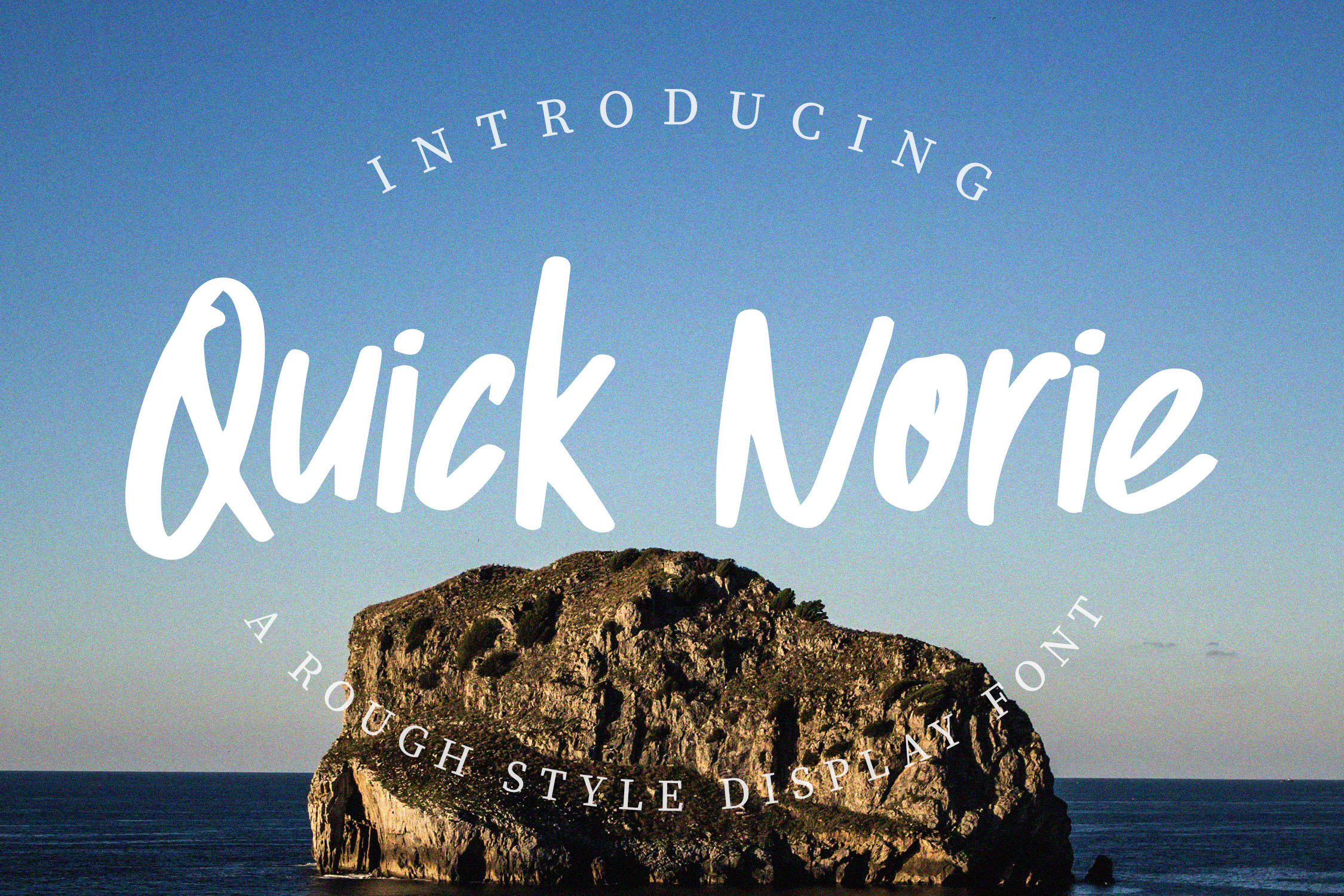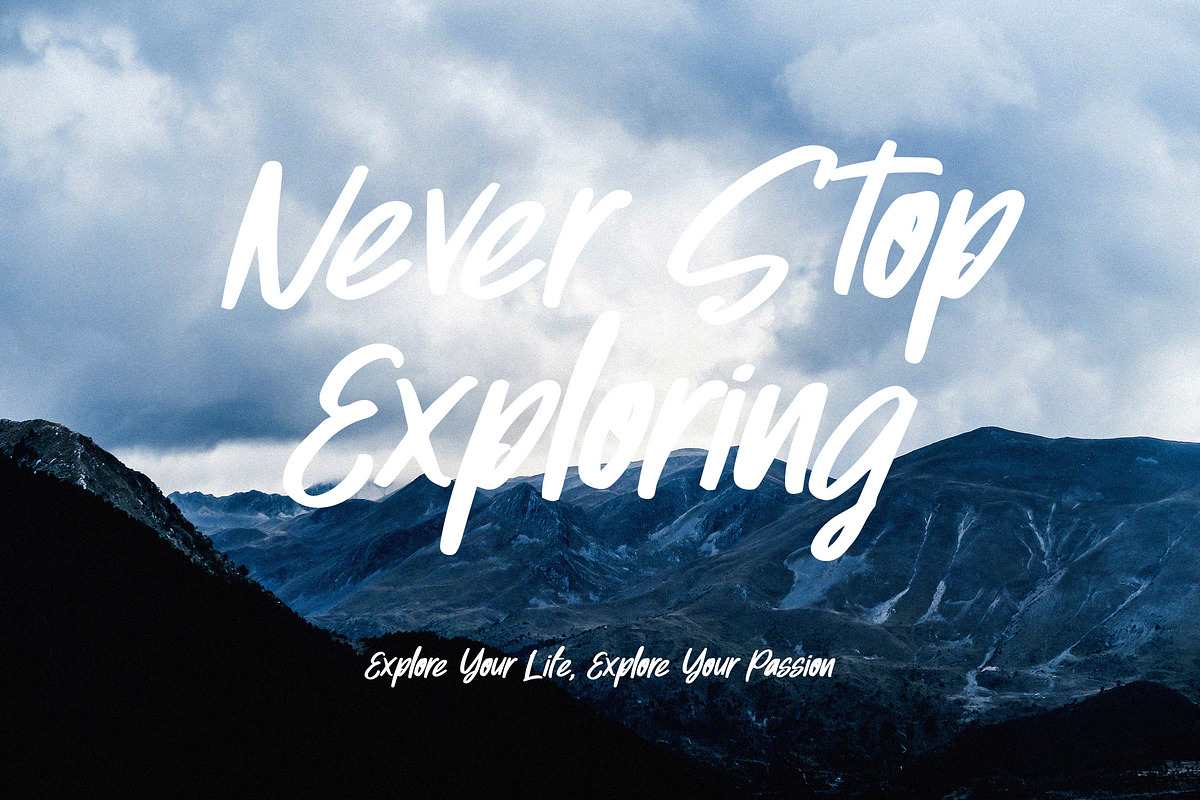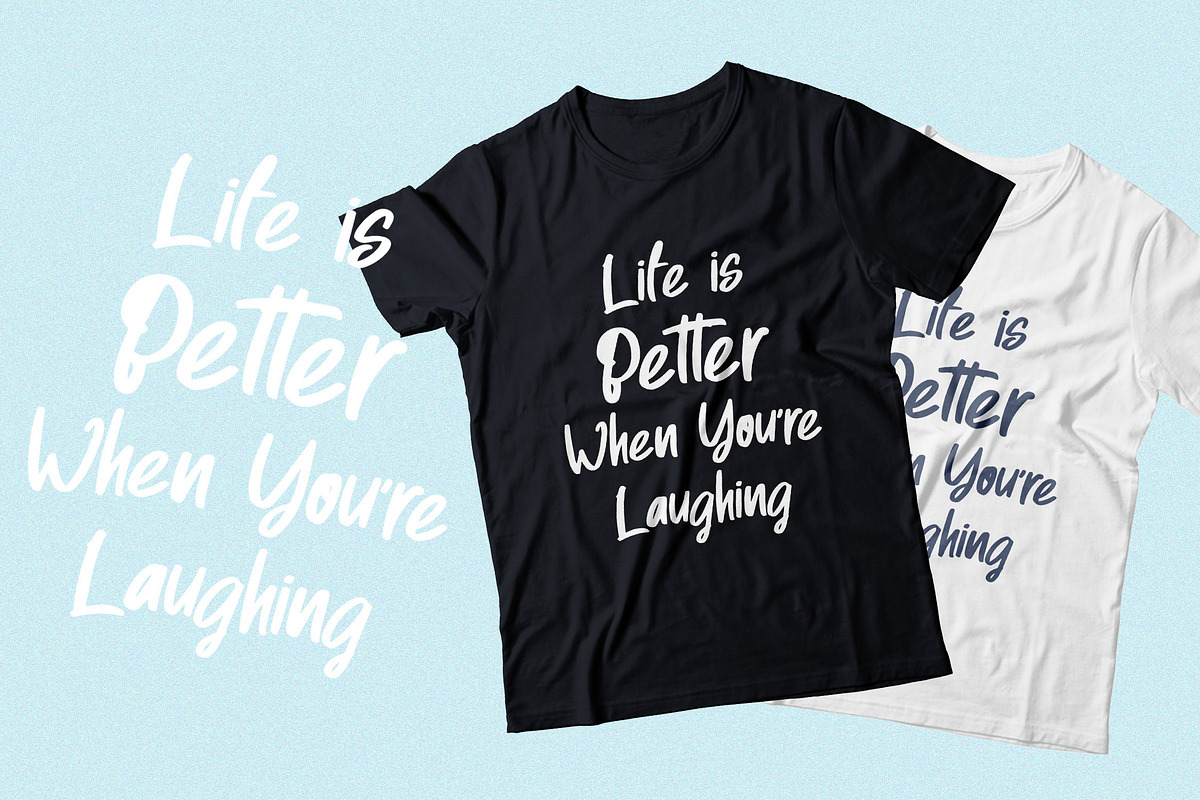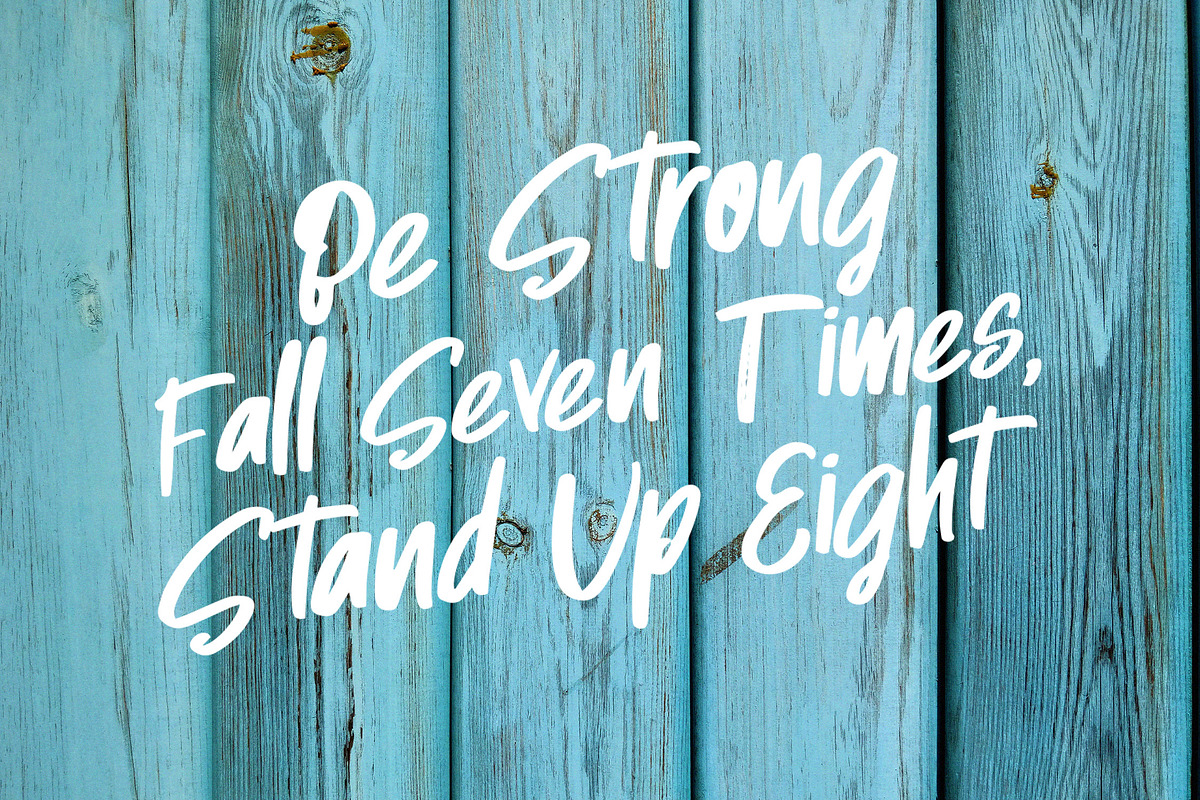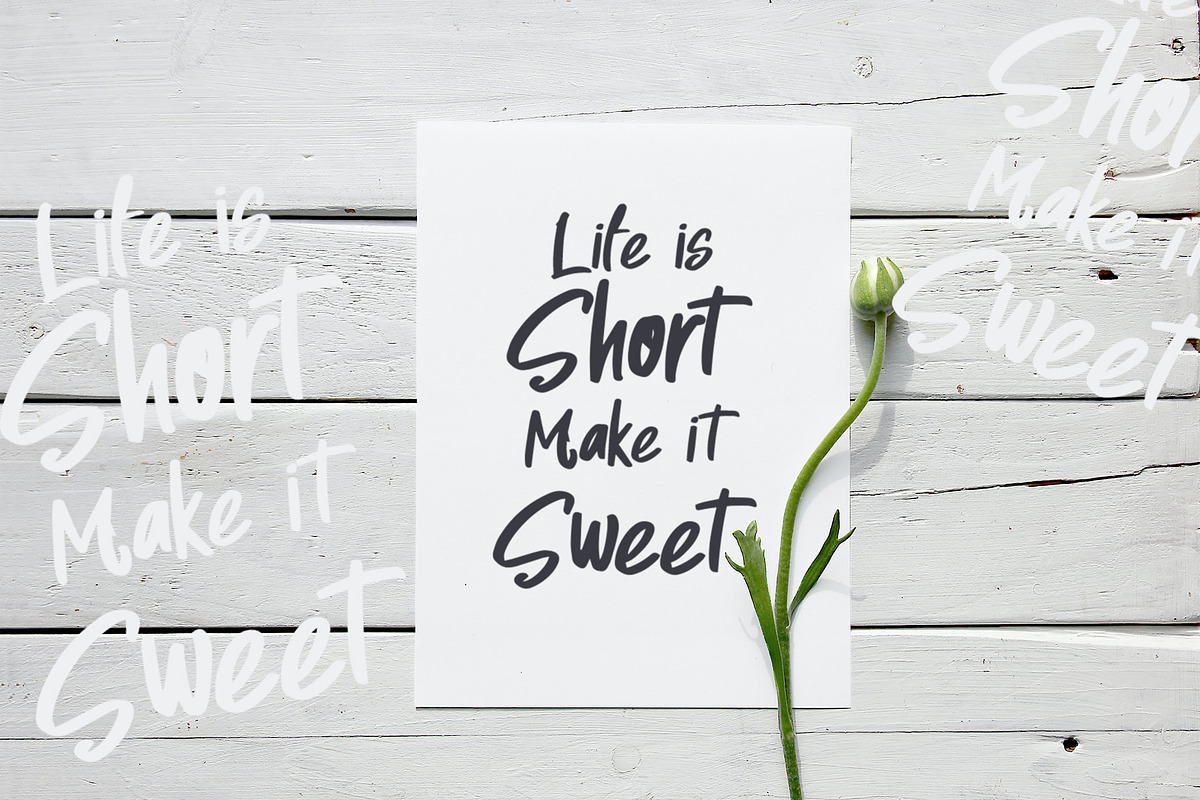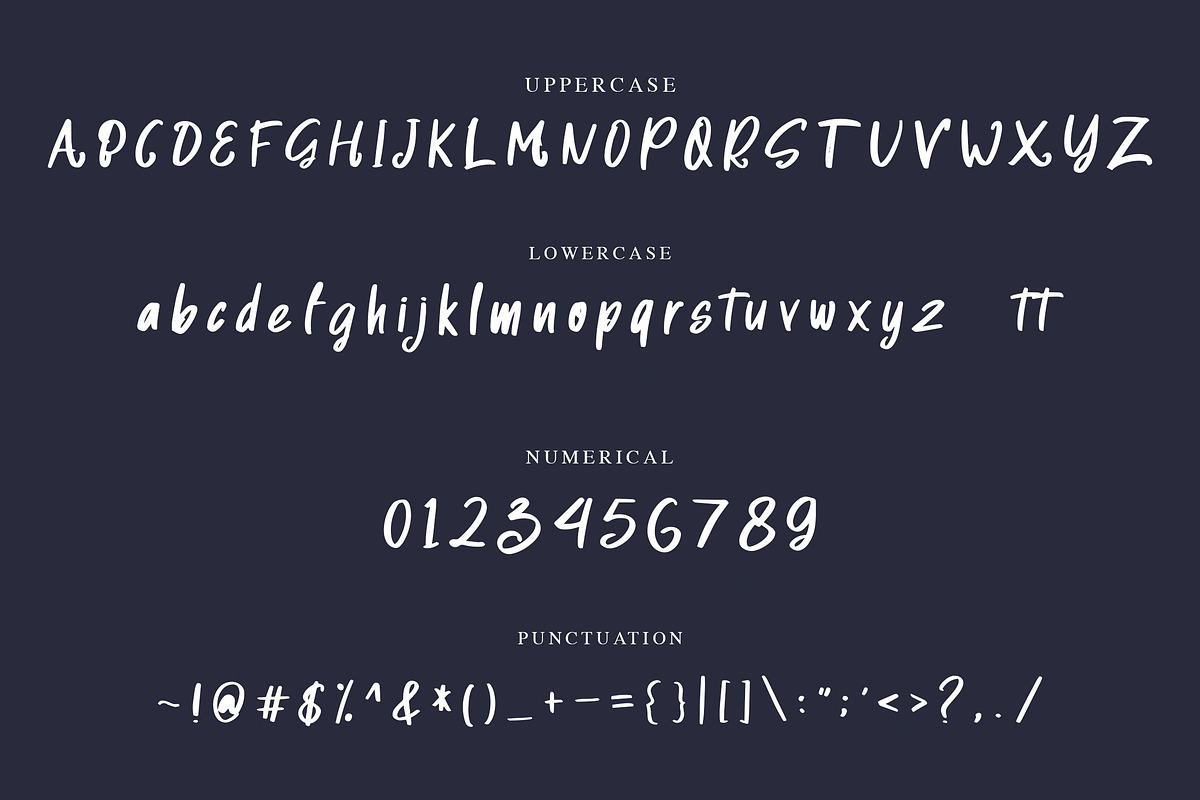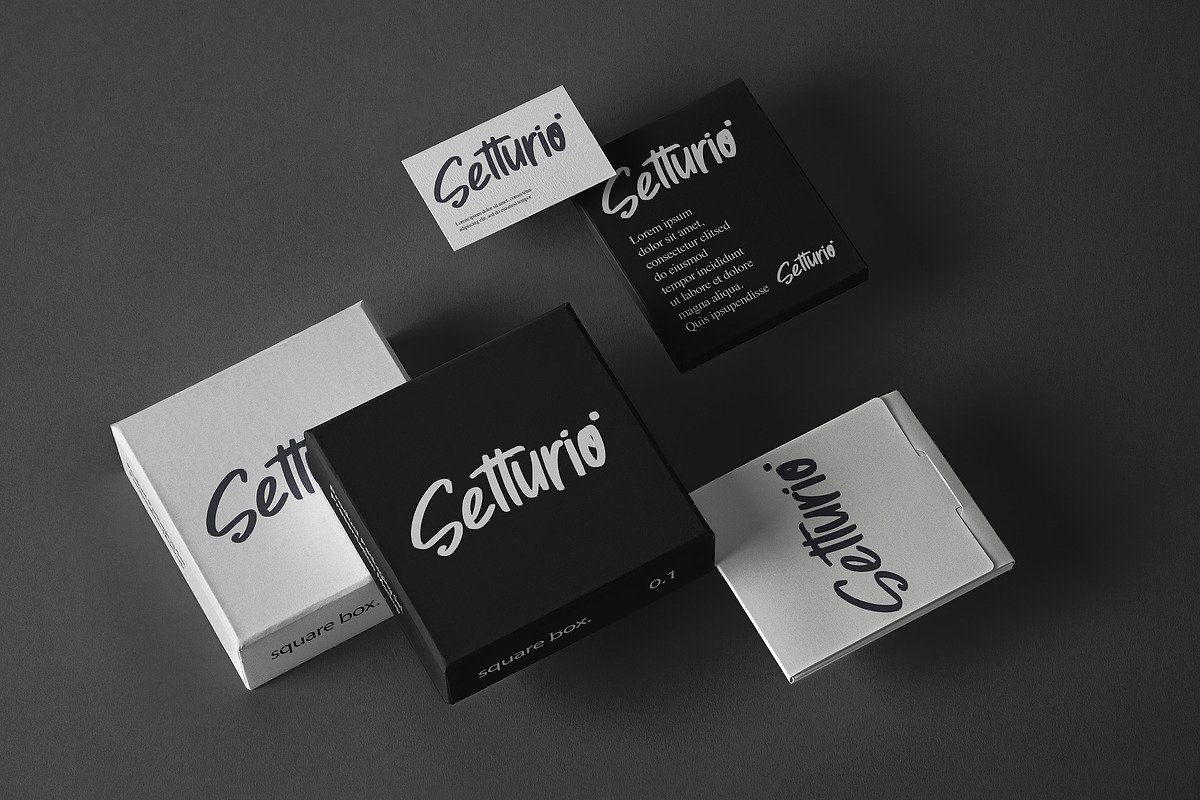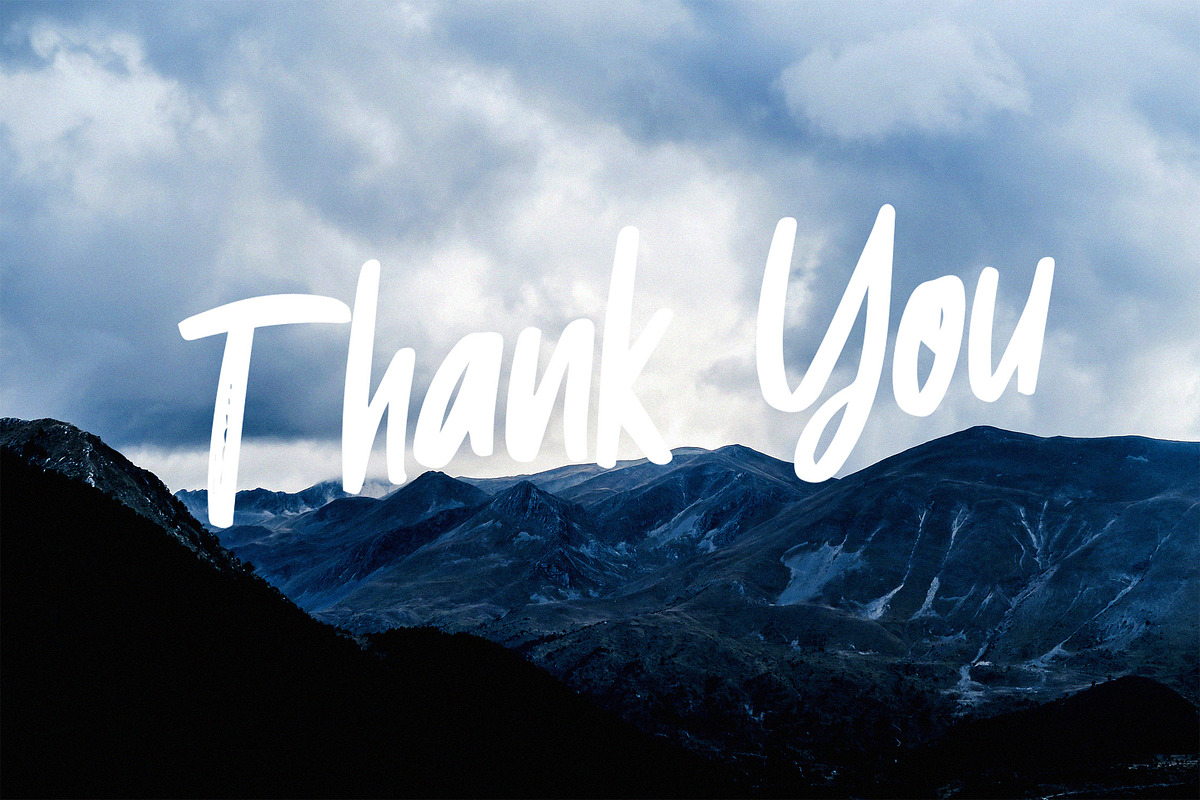
Quick Norie - Handbrush Font
Quick Norie is a display font with rough handbrush style. Is a font with a handbrush style that is made as if it were handwritten. Can be applied to support the graphic appearance of the product to be more attractive and unique. This font is suitable for making previews and covers, logo designs, shirt designs and other graphic needs. Made with hand scratches directly and then processed into font processing software.
Quick Norie font with uppercase characters A-Z, lowercase characters a-z, punctuation and Numerical characters
-Ligature